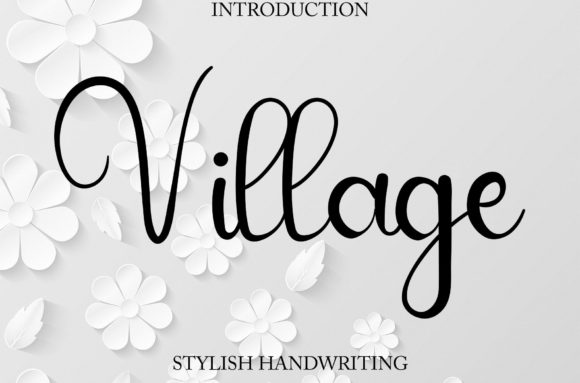
Journey through the captivating world of Village Font, a mesmerizing script font that weaves together elegance and charm, crafted by the visionary Sansana. Immerse yourself in the enchanting allure of Village Font, where each meticulously designed character dances with grace, promising to transform your creative visions into tangible masterpieces.
Indulge in the beauty of Village Font's flowing style, where letters intertwine like delicate vines, echoing the tender embrace of a romantic rendezvous. Experience the allure of individually charming characters, each possessing a unique personality, adding a touch of whimsy and enchantment to your designs.
With Village Font as your muse, embark on a typographic odyssey, exploring the boundless realms of creativity. Craft heartfelt love letters that resonate with an irresistible charm, leaving your loved ones spellbound by the eloquent expression of your emotions. Design captivating wedding invitations that exude timeless elegance, setting the perfect tone for your special day. Weave enchanting stories through the pages of your novels, captivating readers with the allure of Village Font's captivating characters.
Unleash your artistic flair with Village Font's versatility, extending its enchanting touch to a myriad of creative endeavors. Create eye-catching social media posts that demand attention, captivating your audience with visually striking visuals. Elevate the visual appeal of your marketing materials, allowing your brand's message to shine through with a touch of sophistication. Let Village Font guide you in crafting stunning logos and branding elements that reflect the essence of your business, leaving a lasting impression on your clientele.
With Village Font at your fingertips, transcend the boundaries of ordinary typography, reaching new heights of creativity and expression. Dive into the realm of romantic poems, where Village Font becomes the eloquent voice of your emotions, conveying the passion and longing of your heart. Discover the limitless potential of Village Font, a script font that captivates, enchants, and empowers your creative spirit.